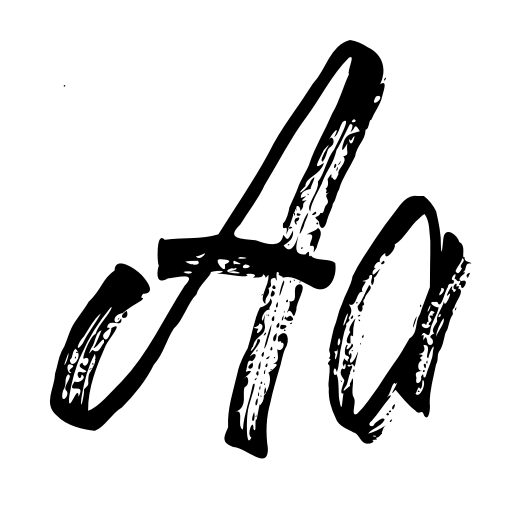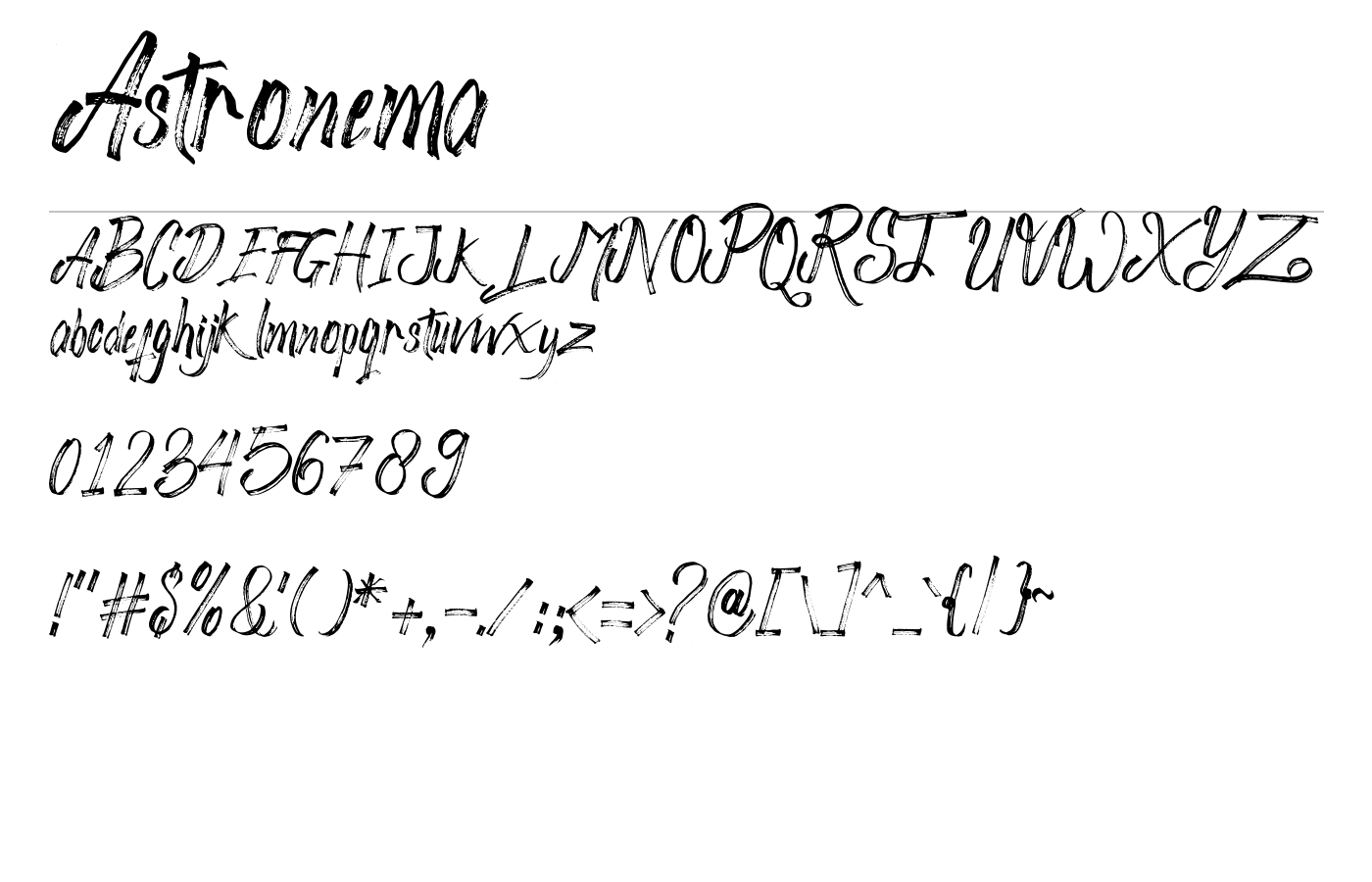
Astronema is a bold, expressive script font with a dynamic, hand-painted look that combines artistic brush strokes and rough textures. Its tall, slightly condensed letterforms with varied stroke widths give it a lively, edgy personality, making it perfect for creative, eye-catching logos, posters, and branding that seeks to convey energy and individuality. This font works well in projects that benefit from a spontaneous, handcrafted feel, standing out with an authentic, informal charm.
Astronema Font
About Astronema Font